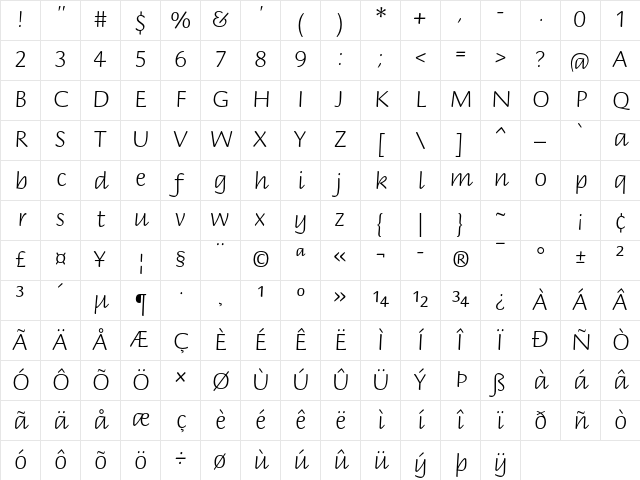
Briem Script Std Light
Designer: Gunnlaugur SE Briem
Design Context for Briem Script Std
Briem Script Std flows with the natural rhythm of handwritten lettering, making it ideal for designs that call for warmth and personal expression. Its slender proportions lend an understated elegance to any composition.
Font Pairing: Combine Briem Script Std with a simple geometric sans for maximum contrast - the tension between flowing curves and clean structure is a classic typographic pairing.
Pro Tip: Use Briem Script Std for short runs of text - names, titles, or taglines. Extended body copy in script faces tires the eye quickly.